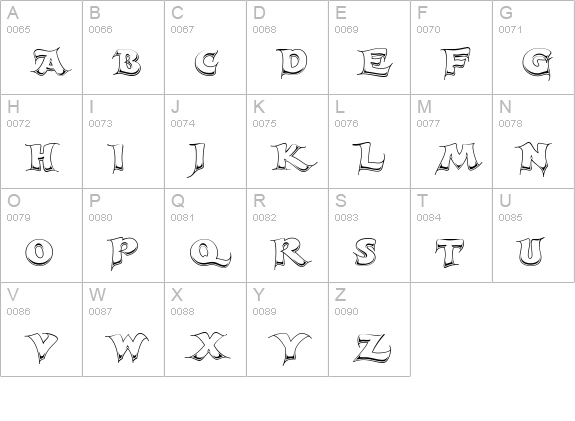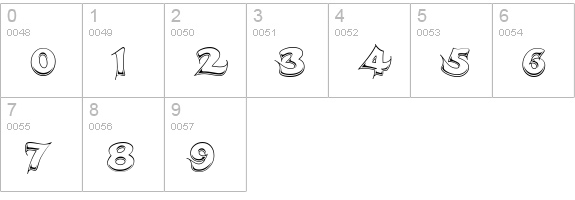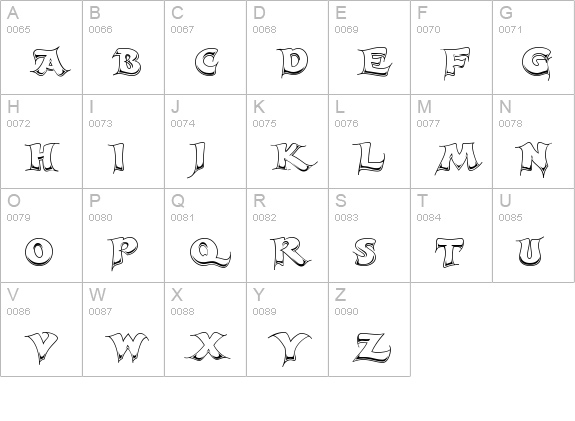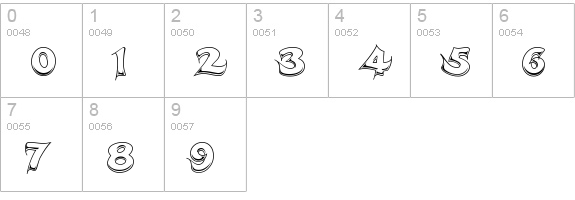
Candles Chrome Font Details
Candles Chrome font is a sleek and stylish typeface that exudes elegance and sophistication. Its smooth curves and modern design make it perfect for a wide range of design projects, from branding to editorial layouts. This versatile font is sure to add a touch of class to any project. Best of all, Candles Chrome font is available for free download at FontsMarket.com. This means you can easily access this stunning typeface without any cost, making it a valuable addition to your font collection. Whether you're a designer looking to elevate your work or a hobbyist searching for the perfect font for a personal project, Candles Chrome font is the ideal choice. Download it today and see for yourself the impact this font can make on your designs.